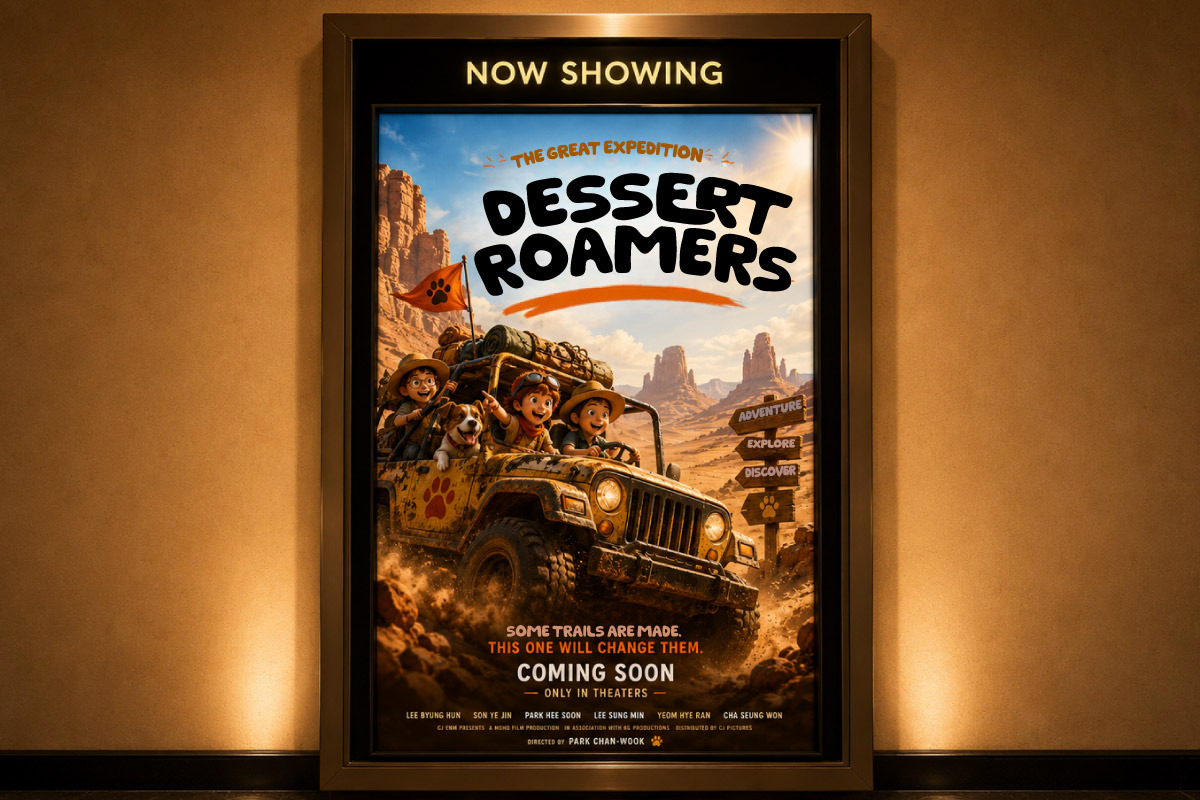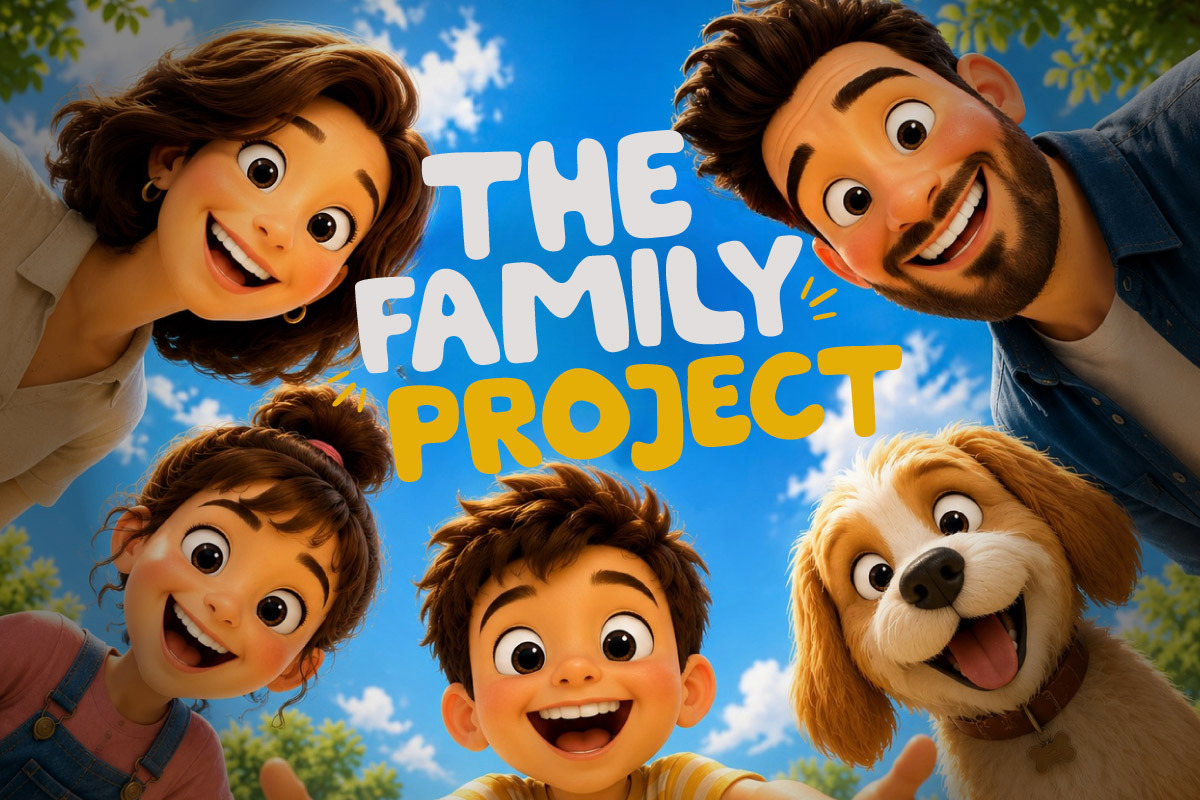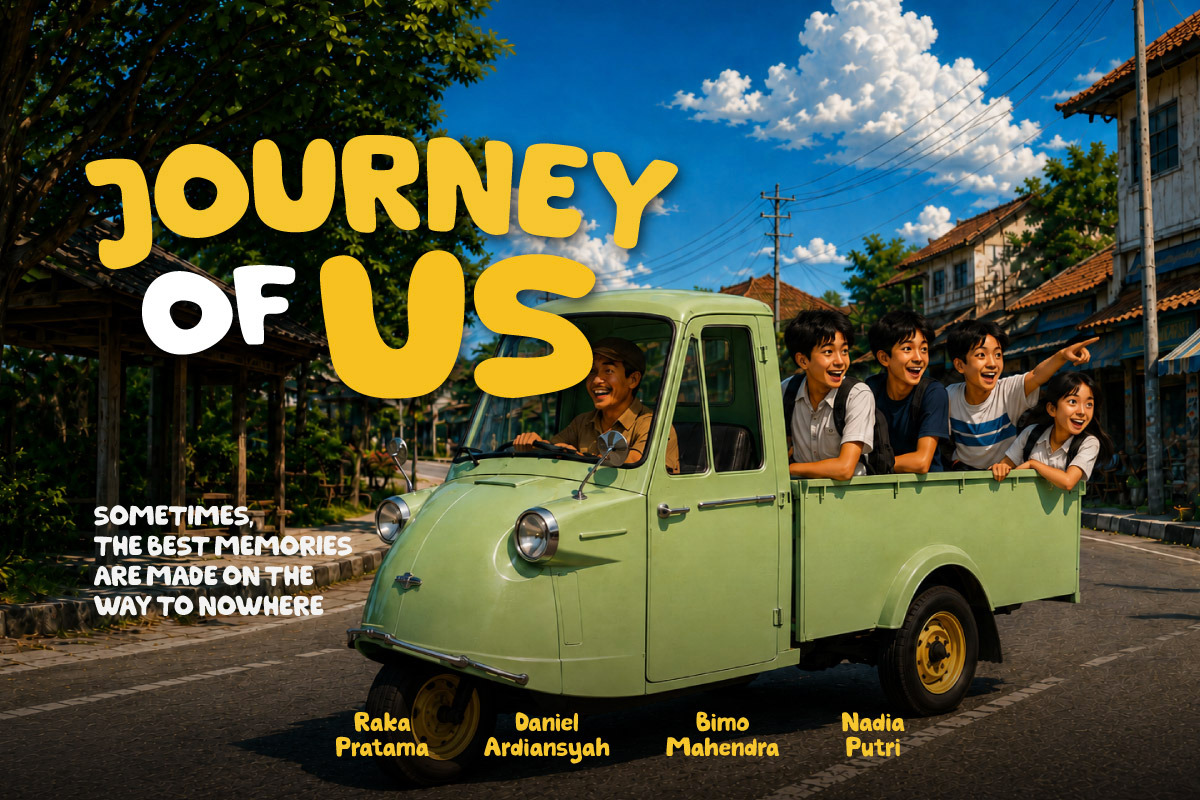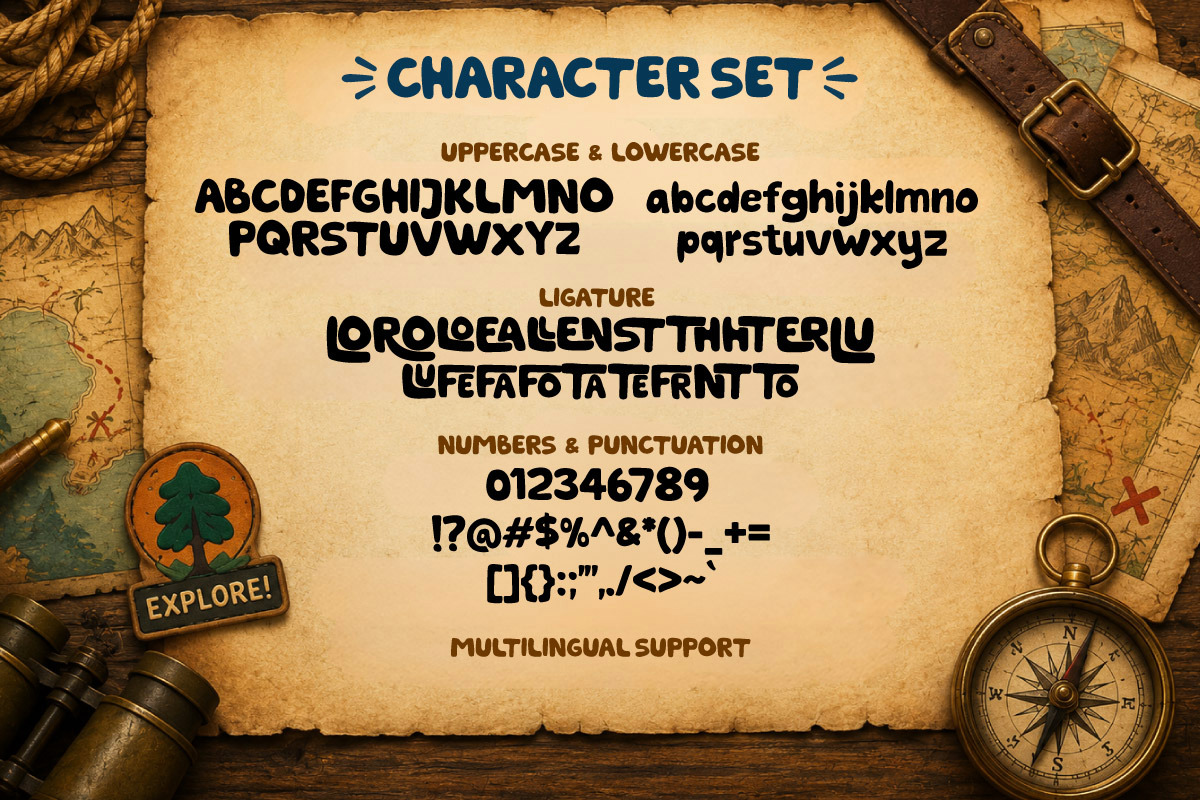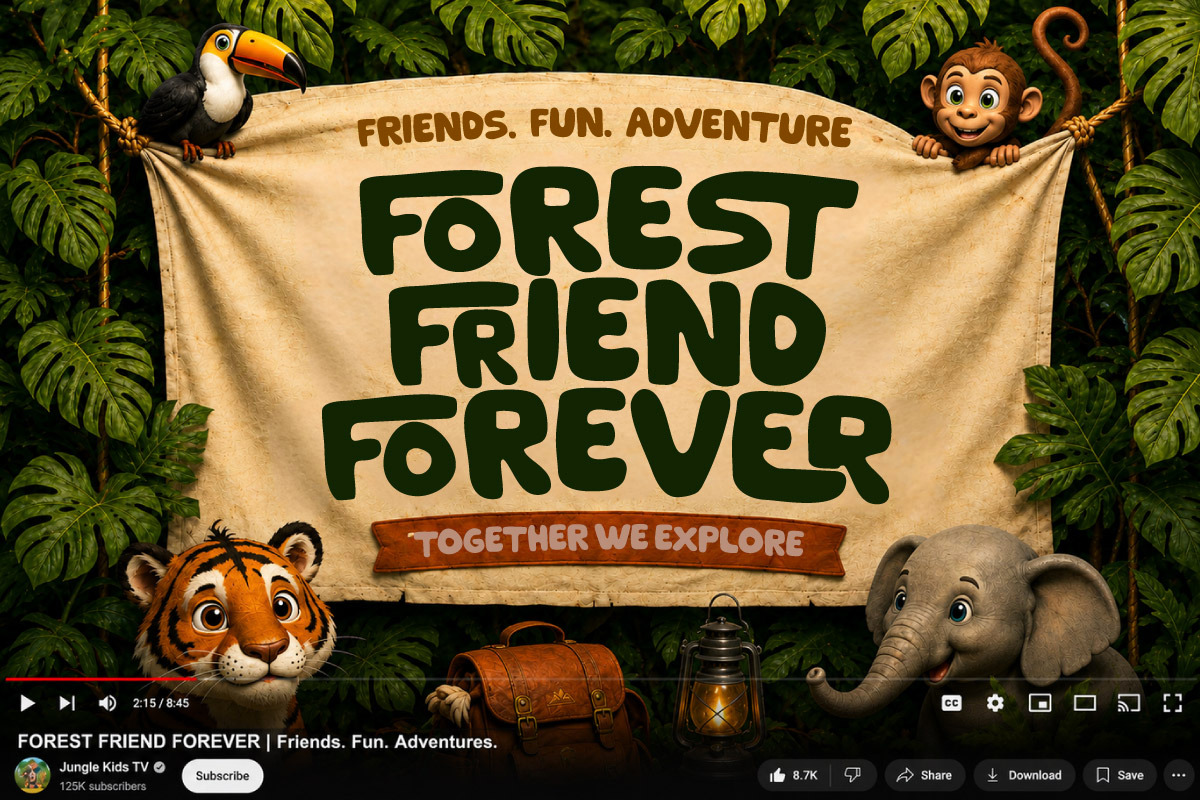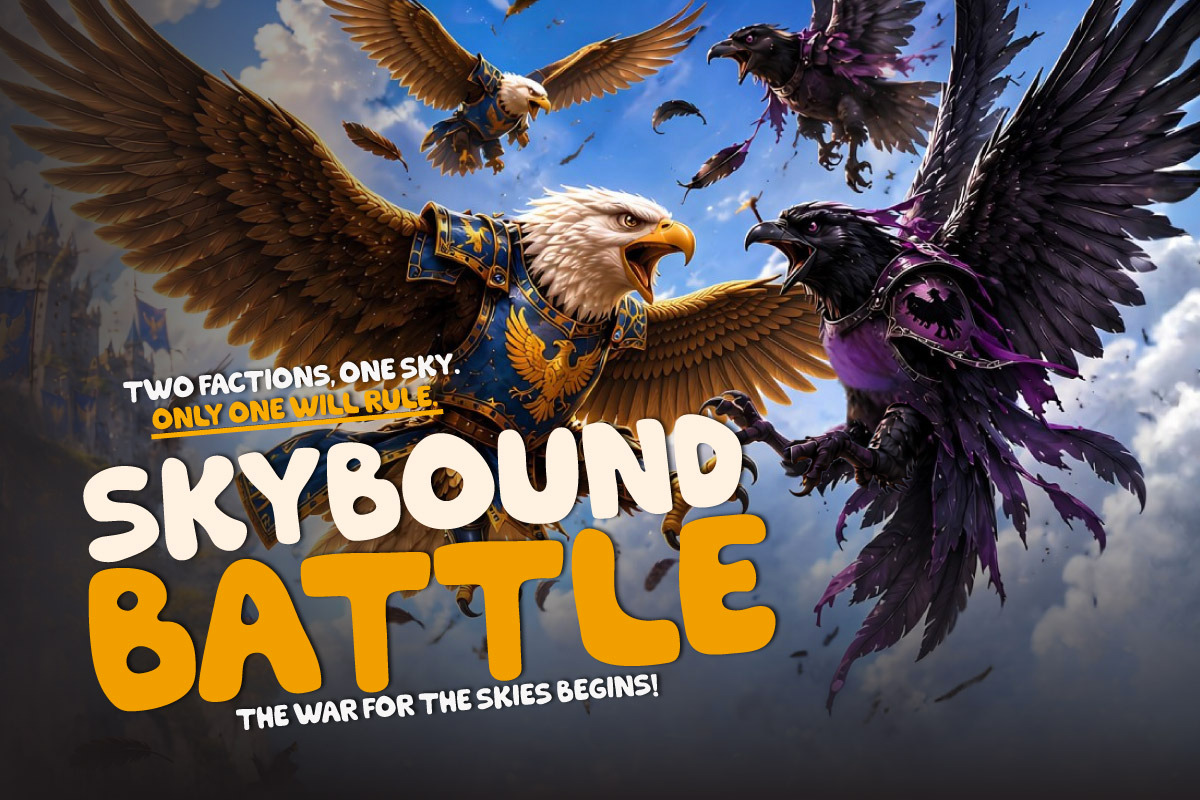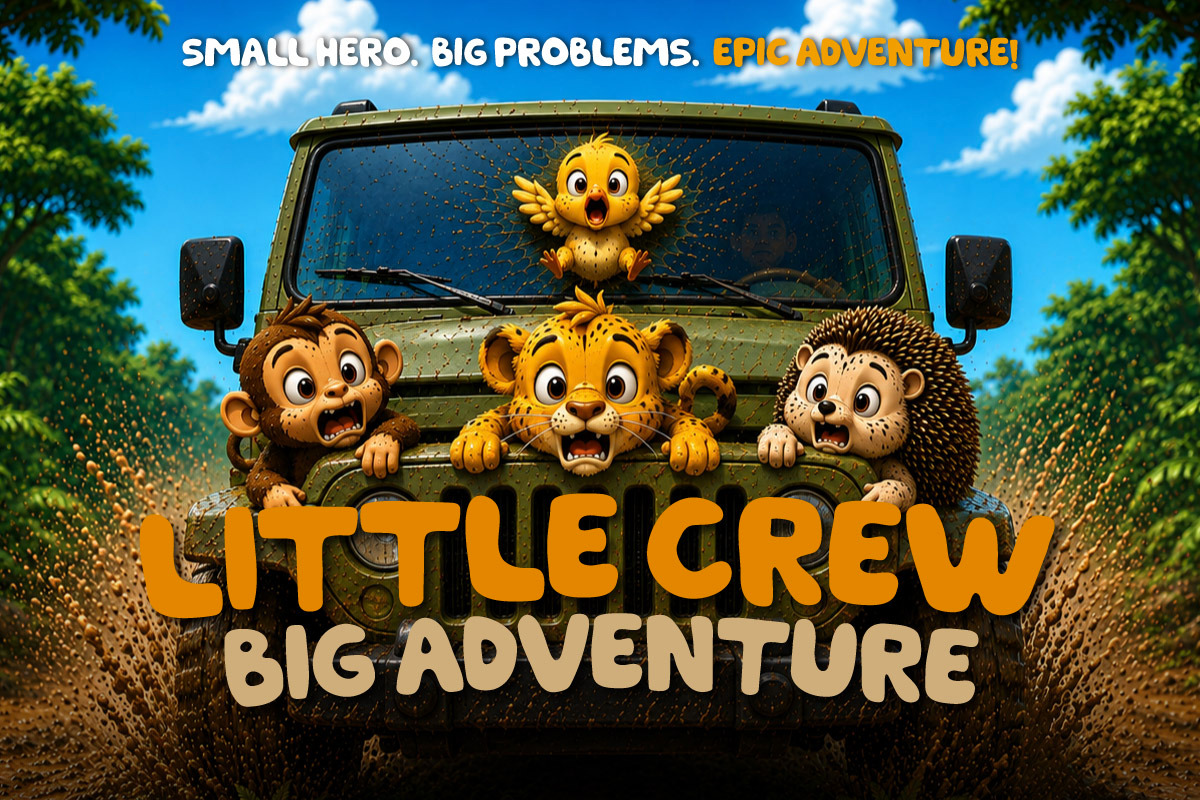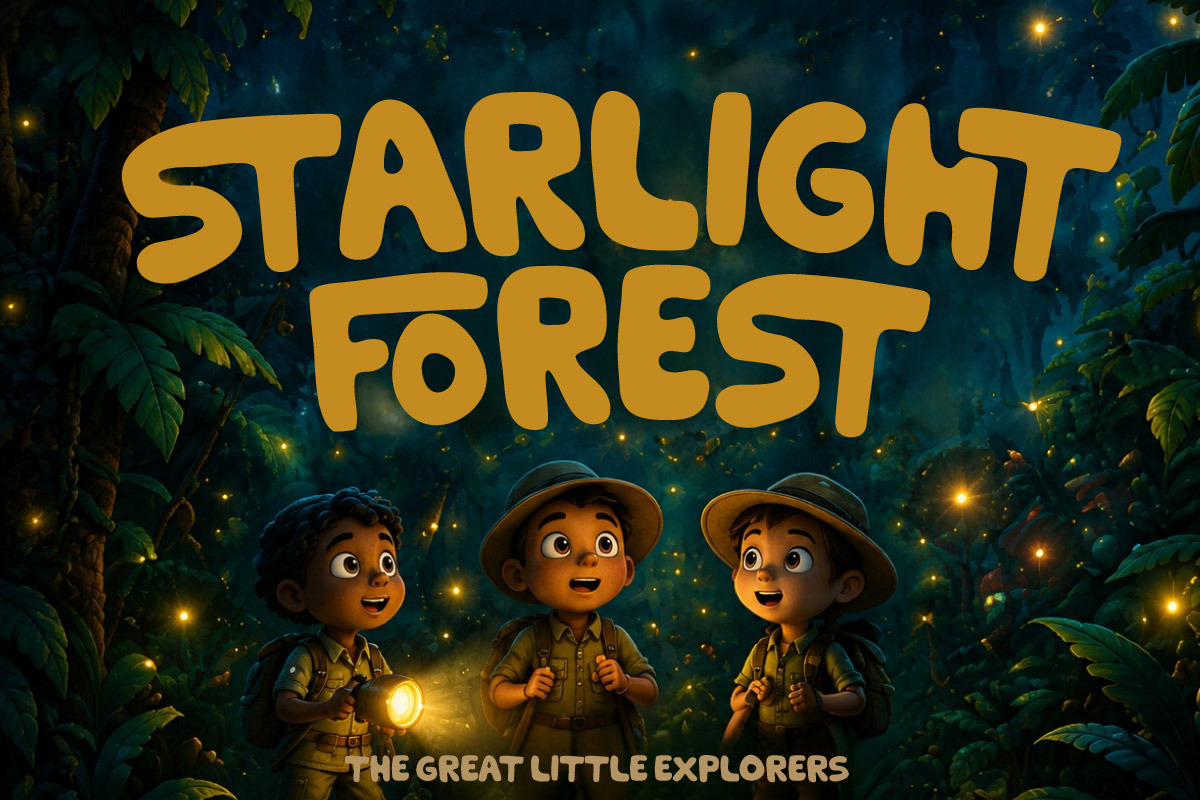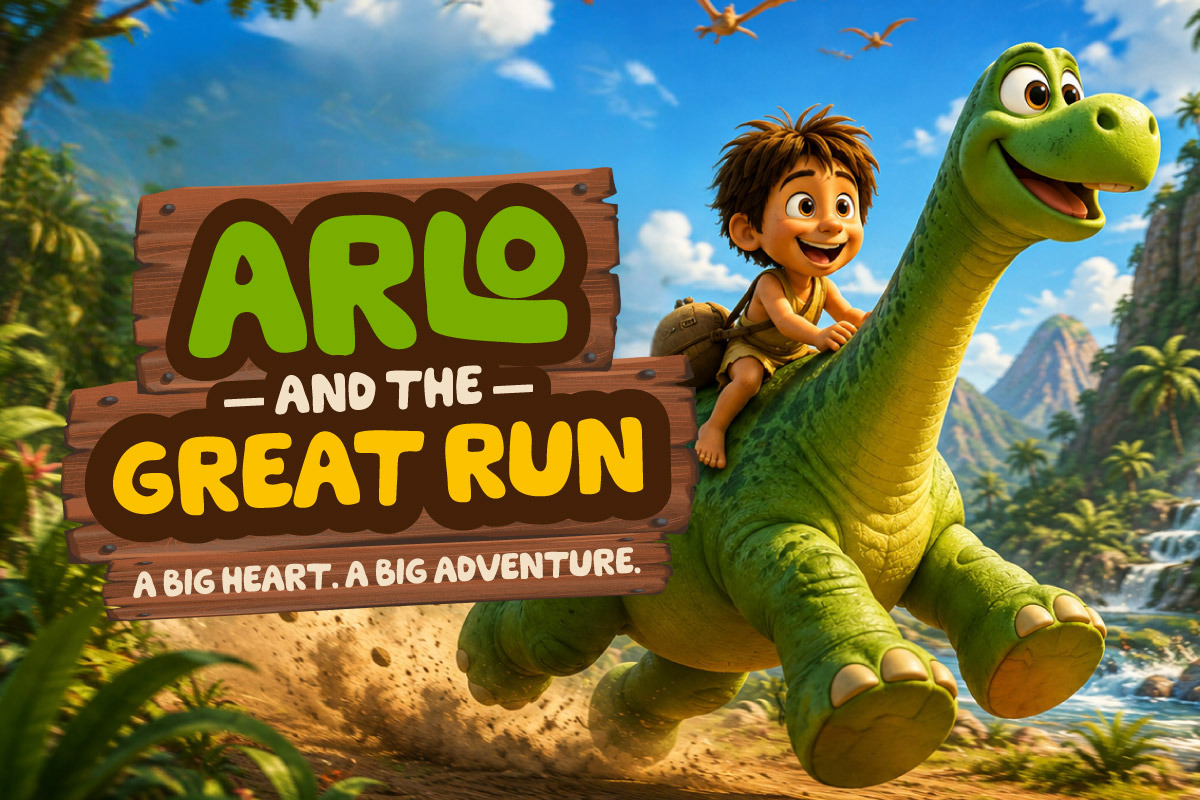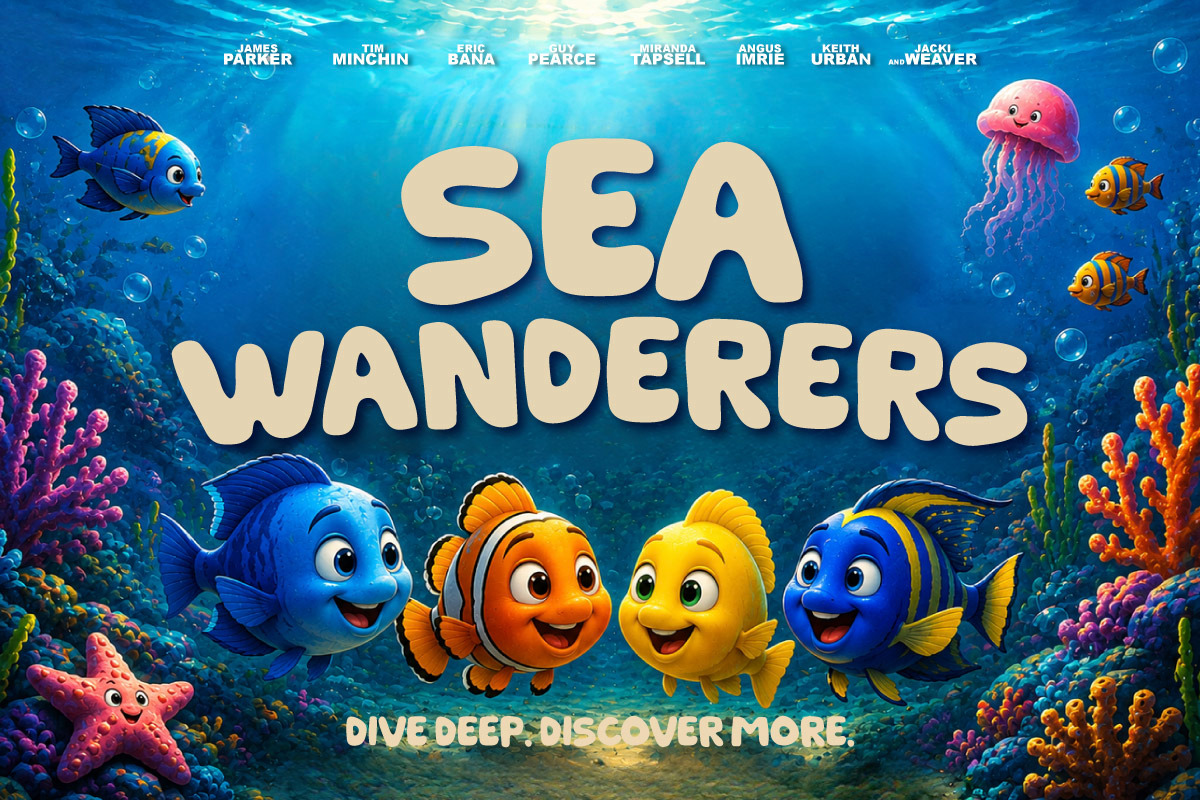
Stelloo Lumelo Movie Playful Display
Stelloo Lumelo – Movie Playful Display is a bold and playful display font designed to bring a fun, adventurous, and imaginative feeling to children's entertainment and cinematic visuals. Its chunky, rounded, hand-drawn letterforms create a friendly yet powerful appearance that instantly stands out in titles, headlines, posters, and promotional artwork.
This font is perfect for children's adventure movies, animated films, travel documentaries, nature educational content, kids entertainment, movie posters, and big-screen promotions. Stelloo Lumelo works beautifully for movie titles, posters, YouTube thumbnails, children's book covers, promotional campaigns, merchandise, packaging, and adventure-themed branding projects.
With its expressive and friendly personality, Stelloo Lumelo adds a fun, happy, playful, adventurous, and cinematic touch to creative projects. It is an excellent choice for designers, filmmakers, creative studios, content creators, and children's brands looking for a unique display typeface that makes titles memorable and visually engaging.
- Multilingual Support: Fully supports 85+ languages, including: